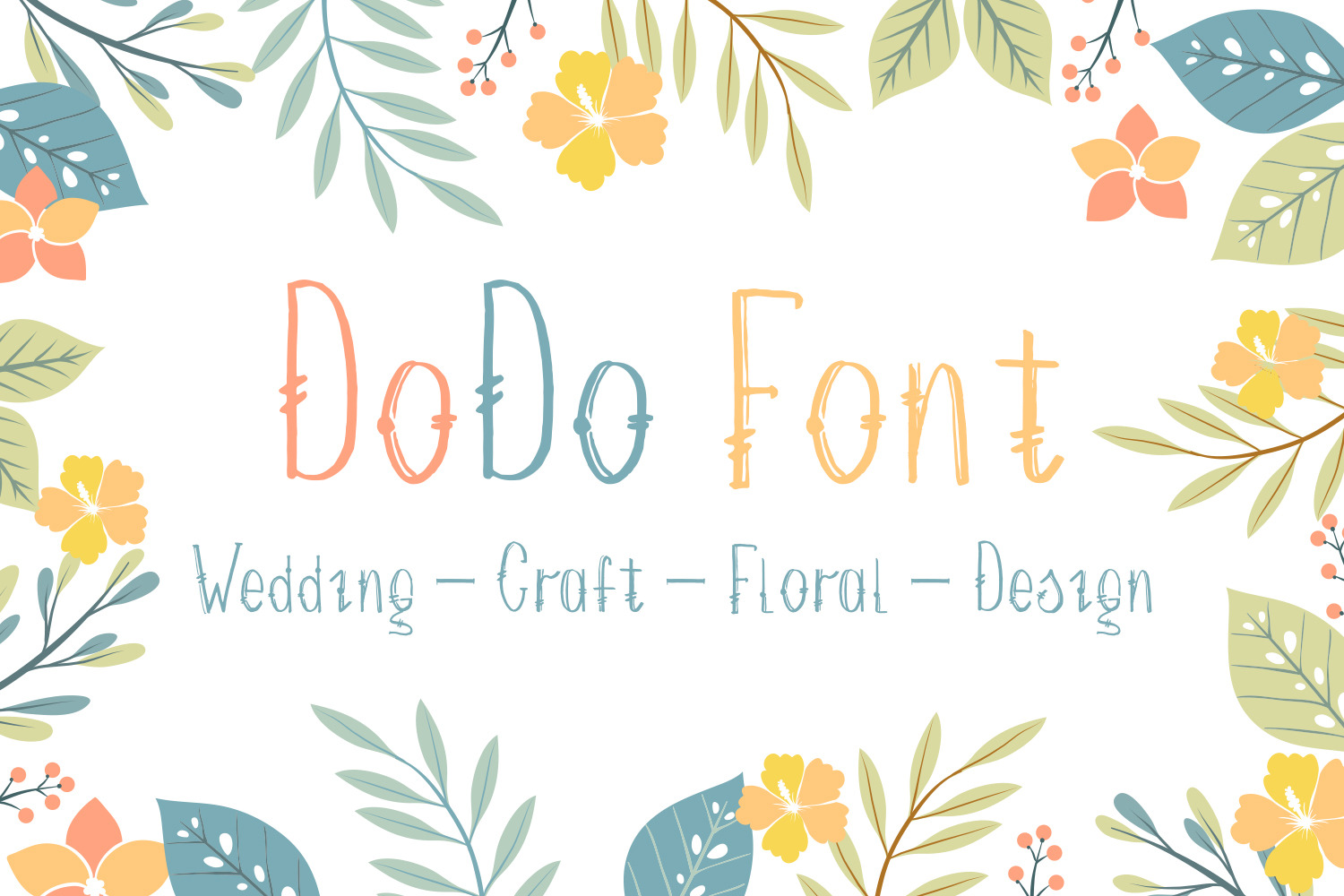
DoDo Font
DoDo is a sweet and delicate handwritten font, masterfully designed to become a true favorite. It maintains its classy calligraphic influences while feeling contemporary and fresh. Fall in love with it and bring your projects to the highest levels!